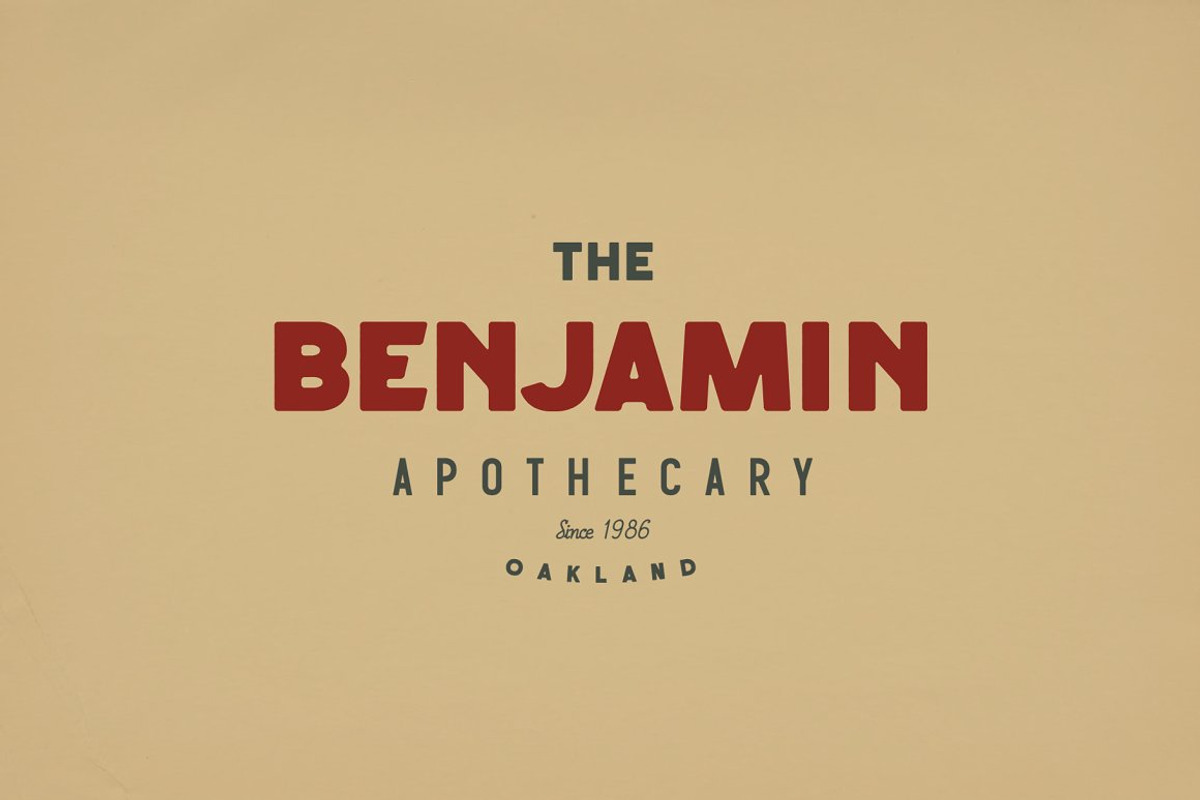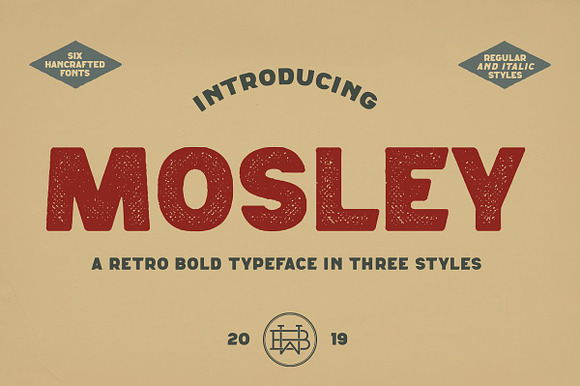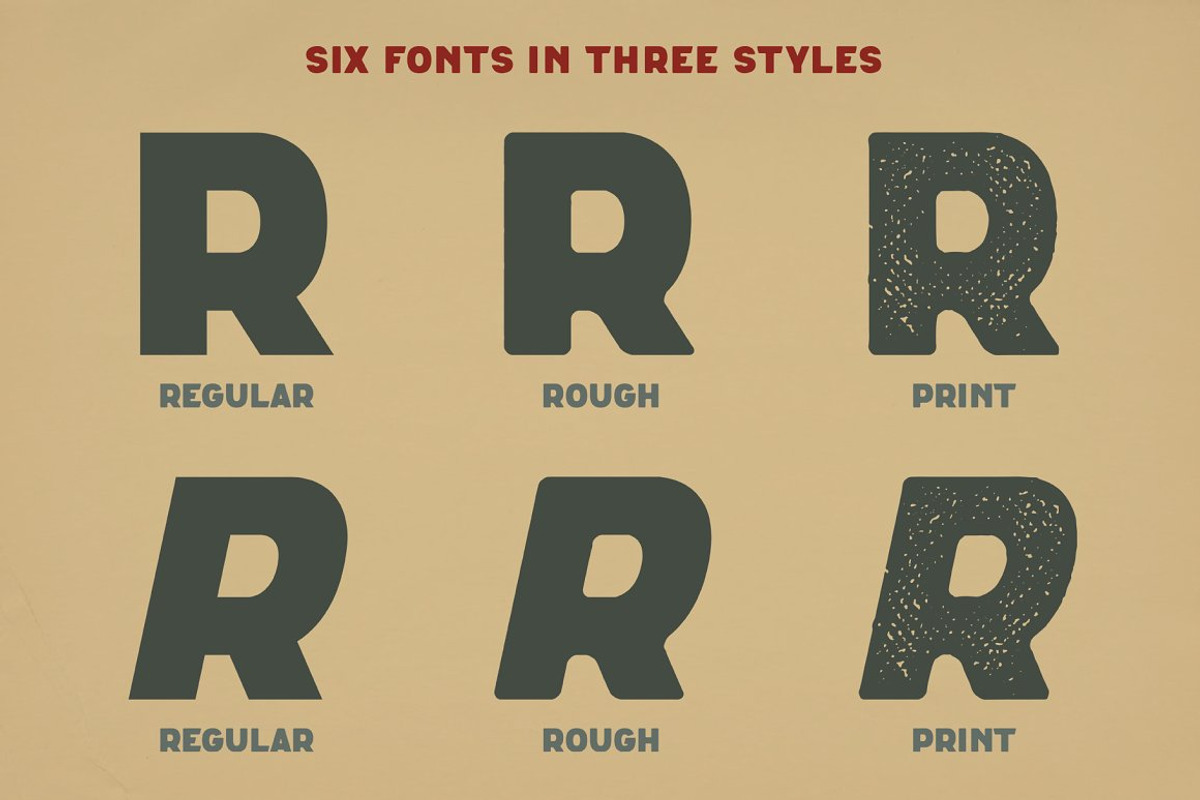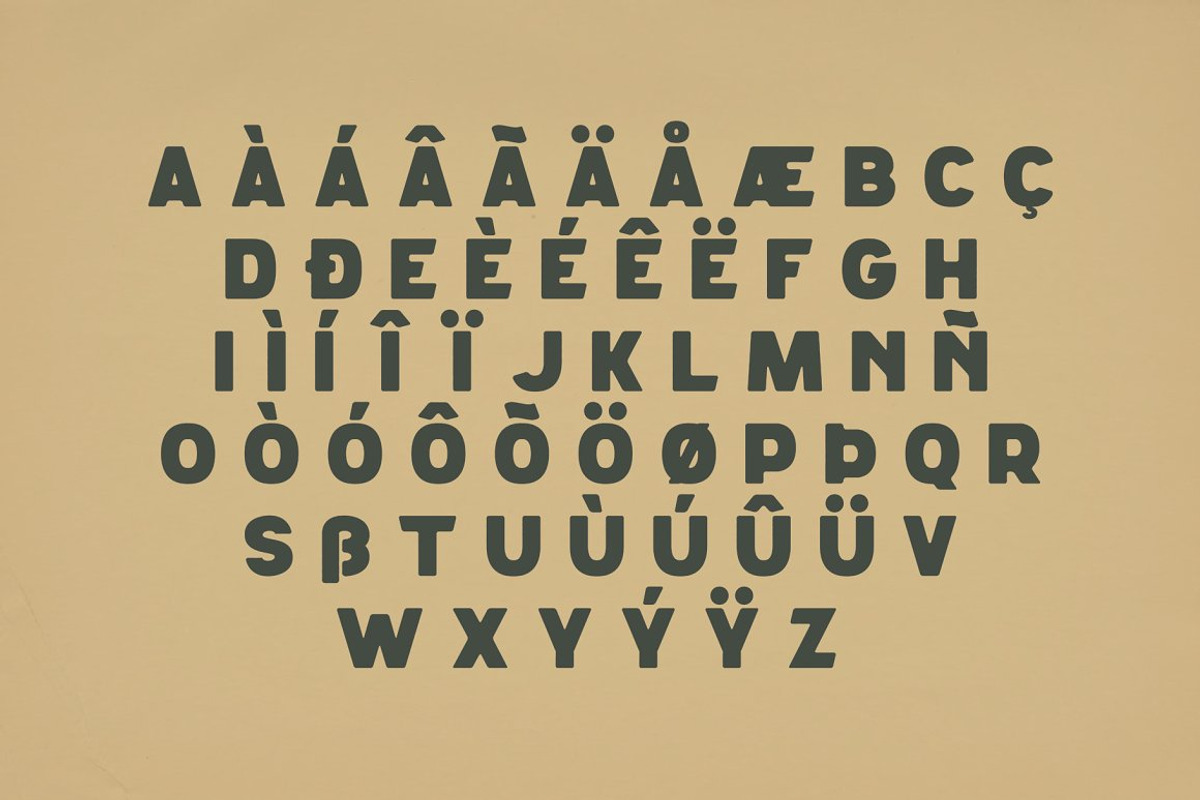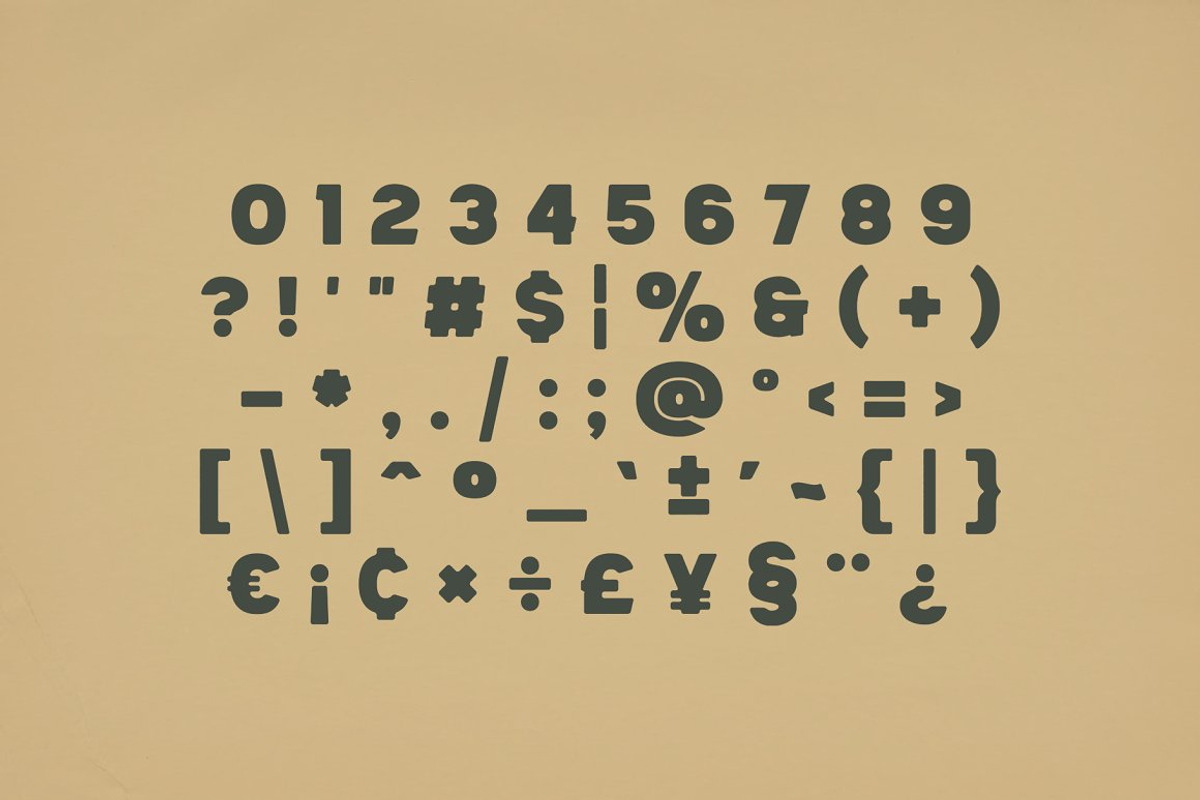
Mosley - Headline Font
Mosley is a powerful, chunky display font built to make a statement. With its heavy weight, bold presence, and clean lines, this typeface demands attention — whether in posters, headlines, branding, or packaging. Its strong proportions and sharp geometry give it a modern yet timeless feel, perfect for sports brands, magazine covers, event graphics, or bold web typography. Supporting extended Latin characters, Mosley provides international usability. Pair it with minimalist sans-serifs, textured backdrops like grain or halftone overlays, or distressed paper for retro-inspired compositions. Mosley brings weight and impact to your most ambitious design projects.
- Supporting extended Latin characters, Mosley provides international usability.
Mosley - Headline Font by Bart Wesolek fits naturally into Branding, posters, packaging, typography.